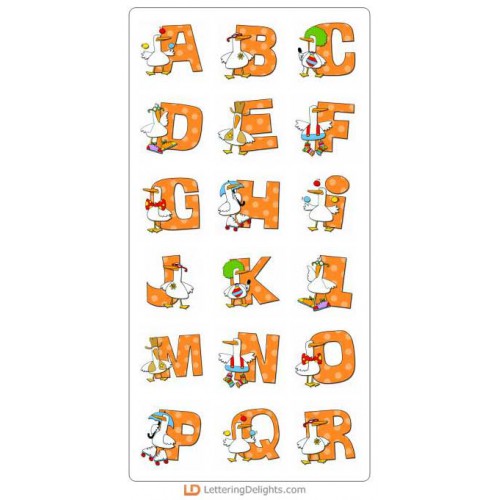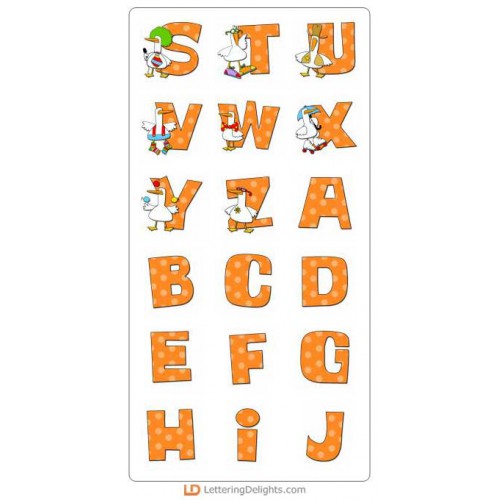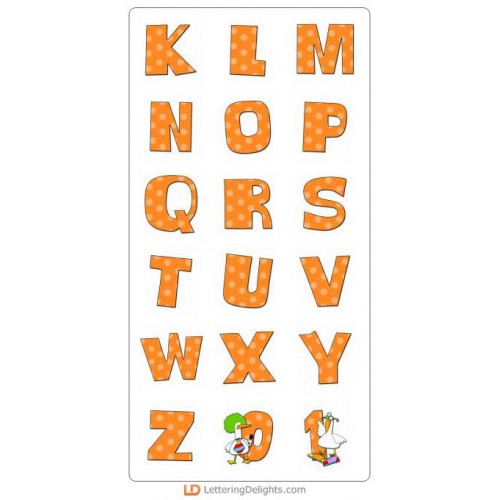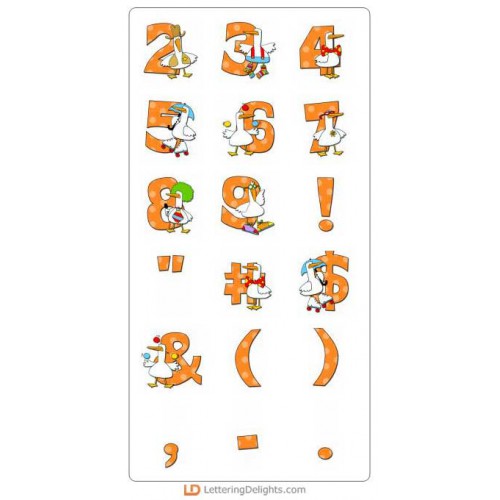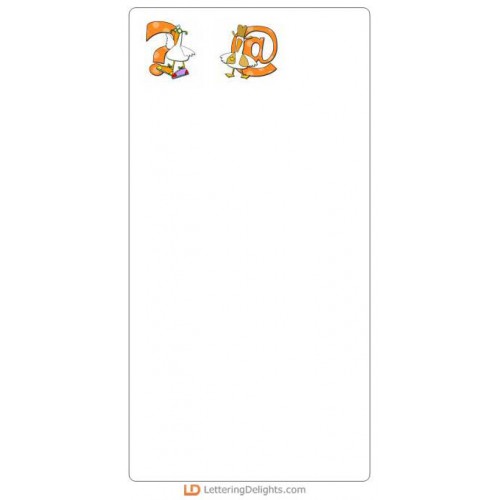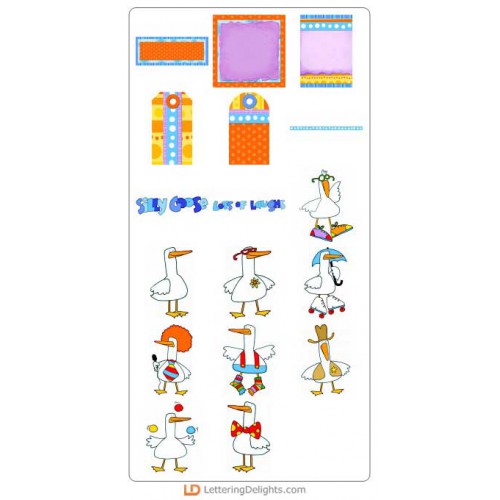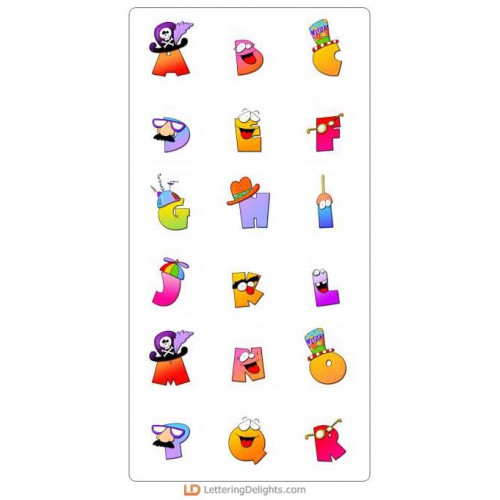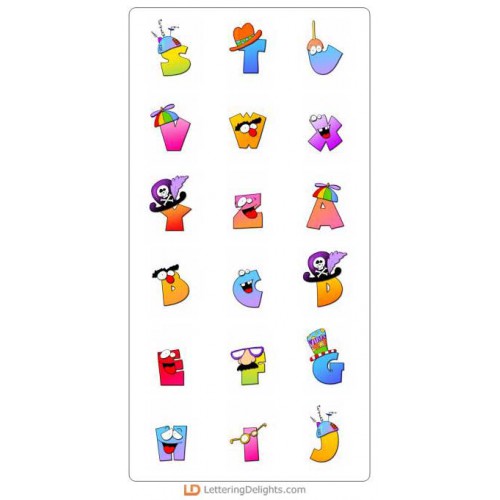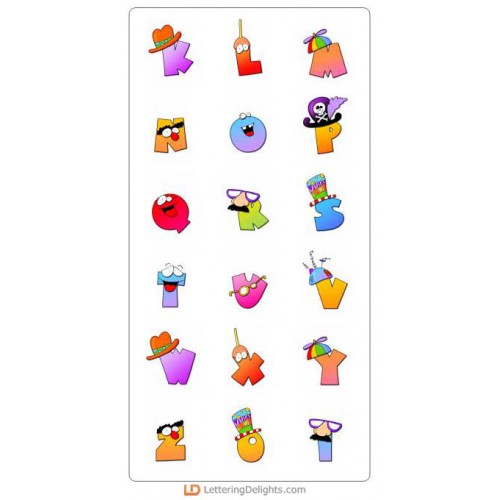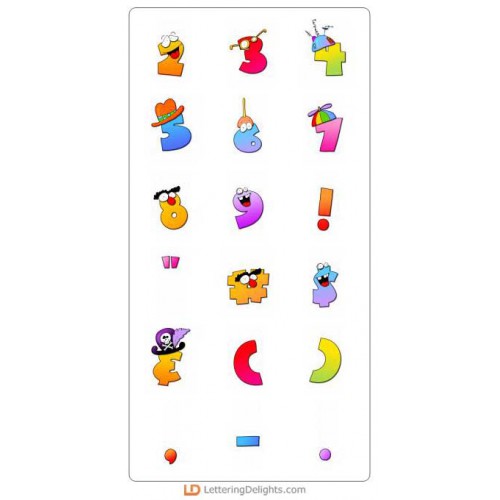
Jillustration's Silly Jilly Bundle
This bundle by Jillustration is sure to tickle your funny bone. Each alphabet and graphic sets is illustrated with wacky, crazy, and silly images, sure to bring out the comedian in everyone.